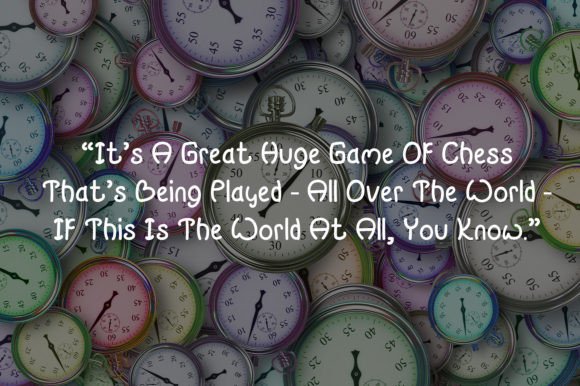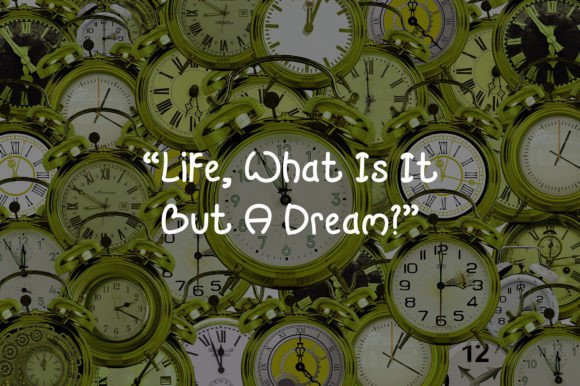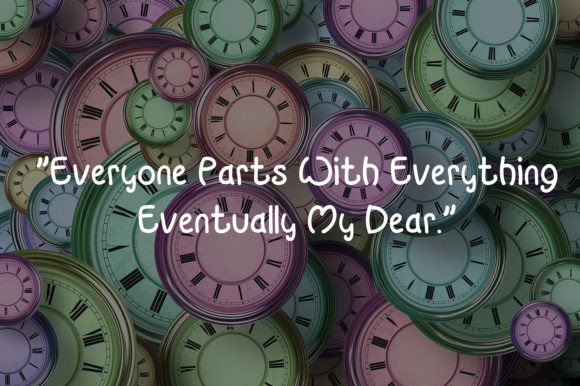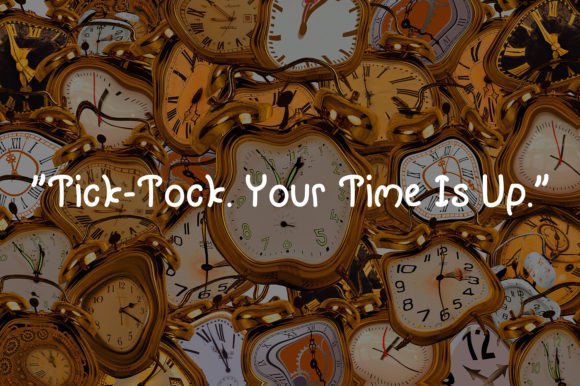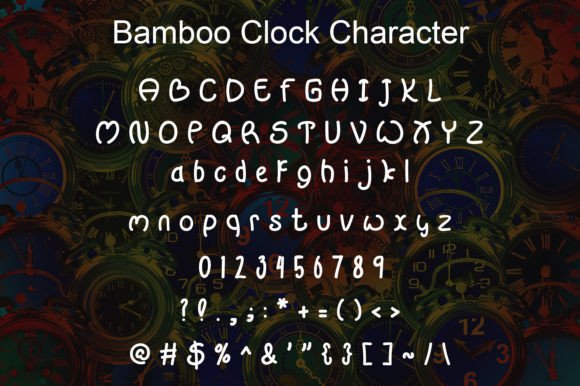
Introduction to Bamboo Clock Font
Bamboo Clock is a cool, incredibly cute, and bubbly handwritten font.
Add it to your party invitations, scrapbooks, social media, or pretty much any design that requires a touch of youth and joy .
Key Features of Bamboo Clock Font
Why Choose Bamboo Clock Font?